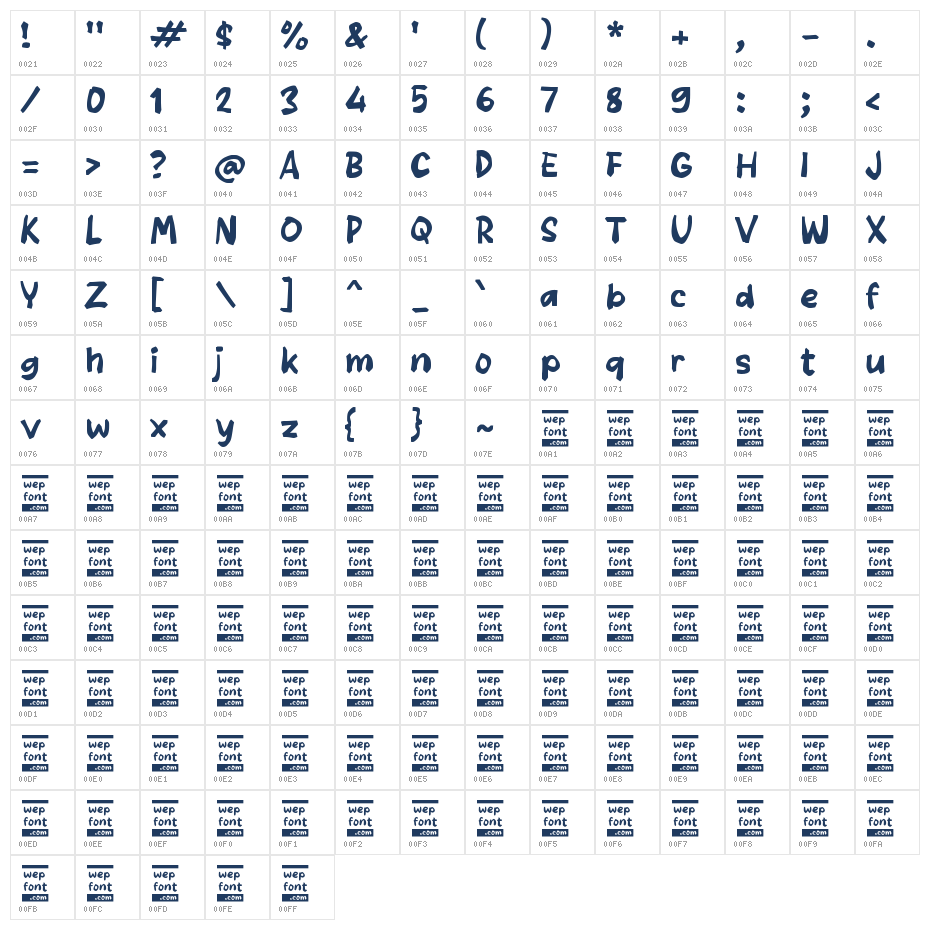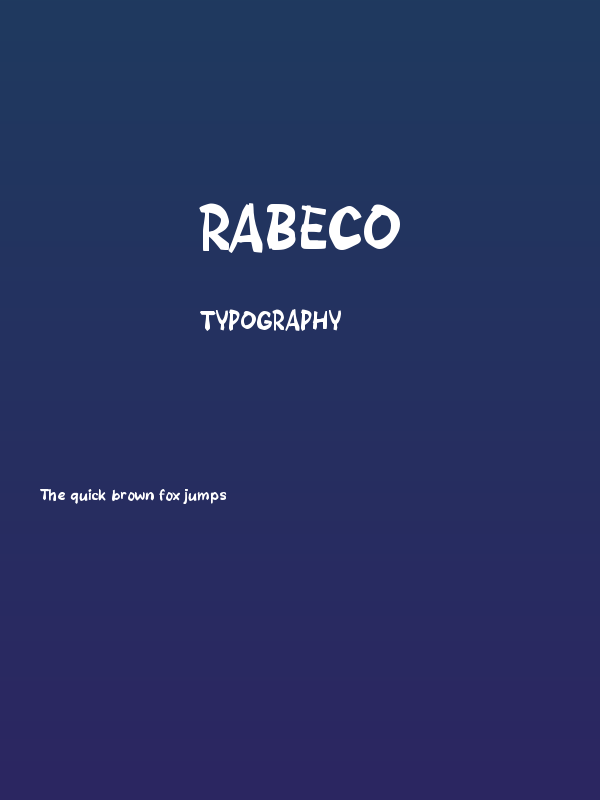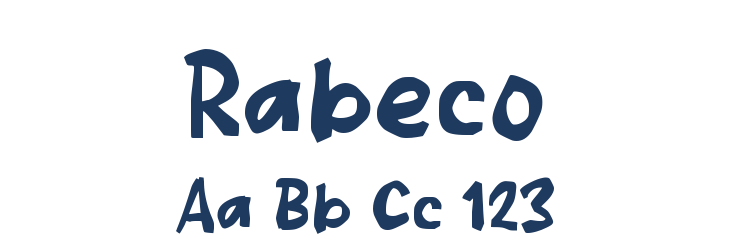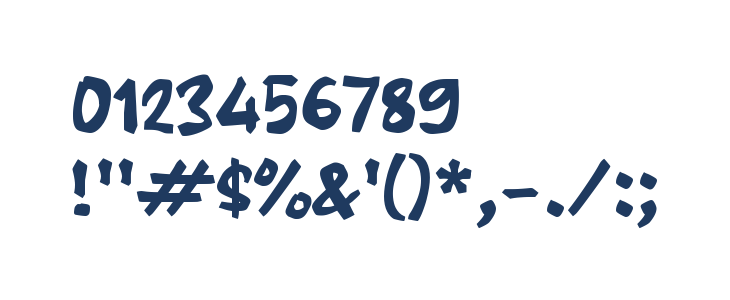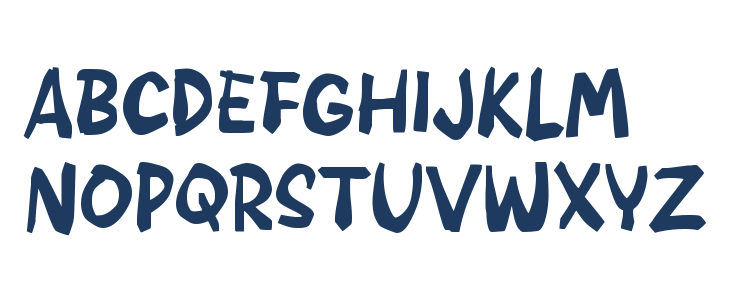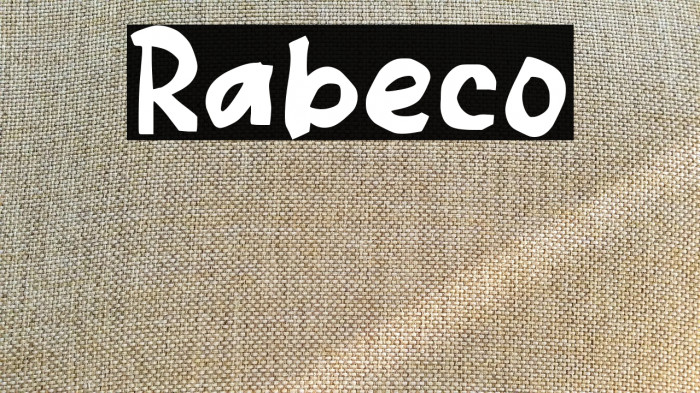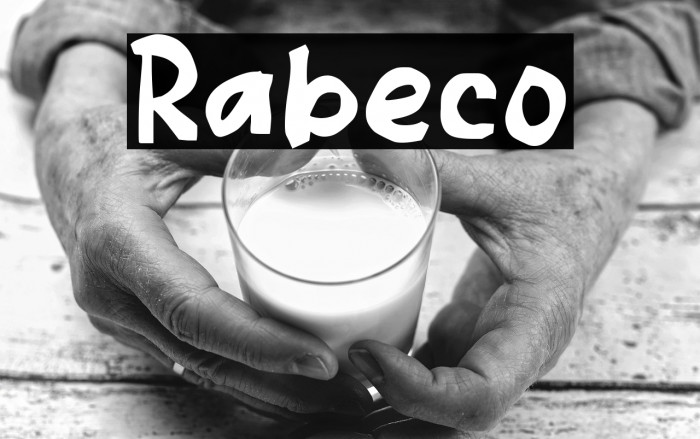
Rabeco Font
Rabeco Description
A playful, bold, handwritten style font with irregular, slightly exaggerated strokes, giving it a casual and friendly appearance.
RABECO UPPERCASE
RABECO LOWERCASE
RABECO OTHER CHARS
| Use Case | Headlines, Posters, Children's materials, Logos |